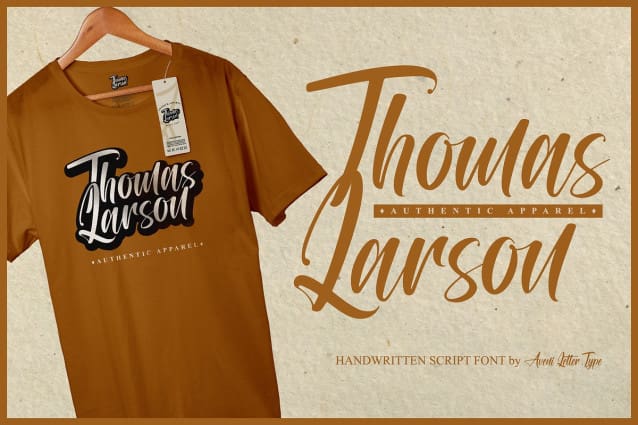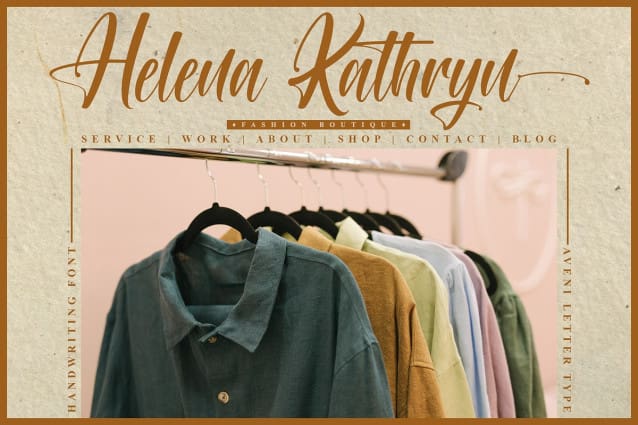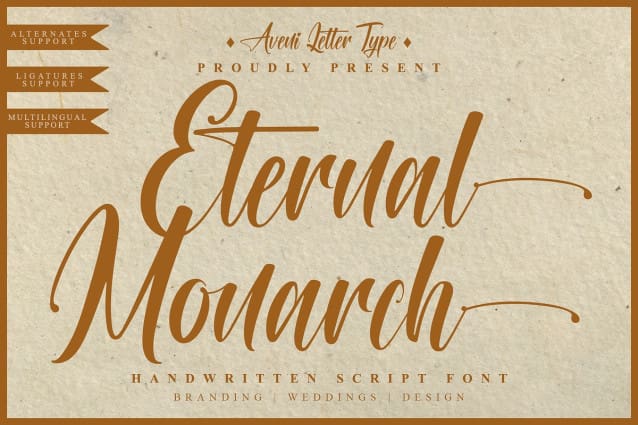
Eternal Monarch Font
Eternal Monarch Font, a handwriting font but still is an elegant style and very neat kerning. This font will look great in many projects like it project as business cards, cosmetic branding, wedding invitations, product packaging, headers, posters, merchandise, apparel branding, social media & greeting cards, and so much more!